From monoline scripts to bold blackletter, get curated picks, usage guidance, and software/cutter compatibility.
Want lettering that carries the swagger of classic ink and lands with impact? These 20 picks range from clean-line scripts to muscular gothic styles, giving logos, signage, and merch a bold voice in seconds, while each entry notes ideal use, quick setup, and tool support—install OTF/TTF and create in Adobe, Affinity, Figma, Office, Cricut, or Silhouette without fuss.
1. Narch Traditional Tattoo Font
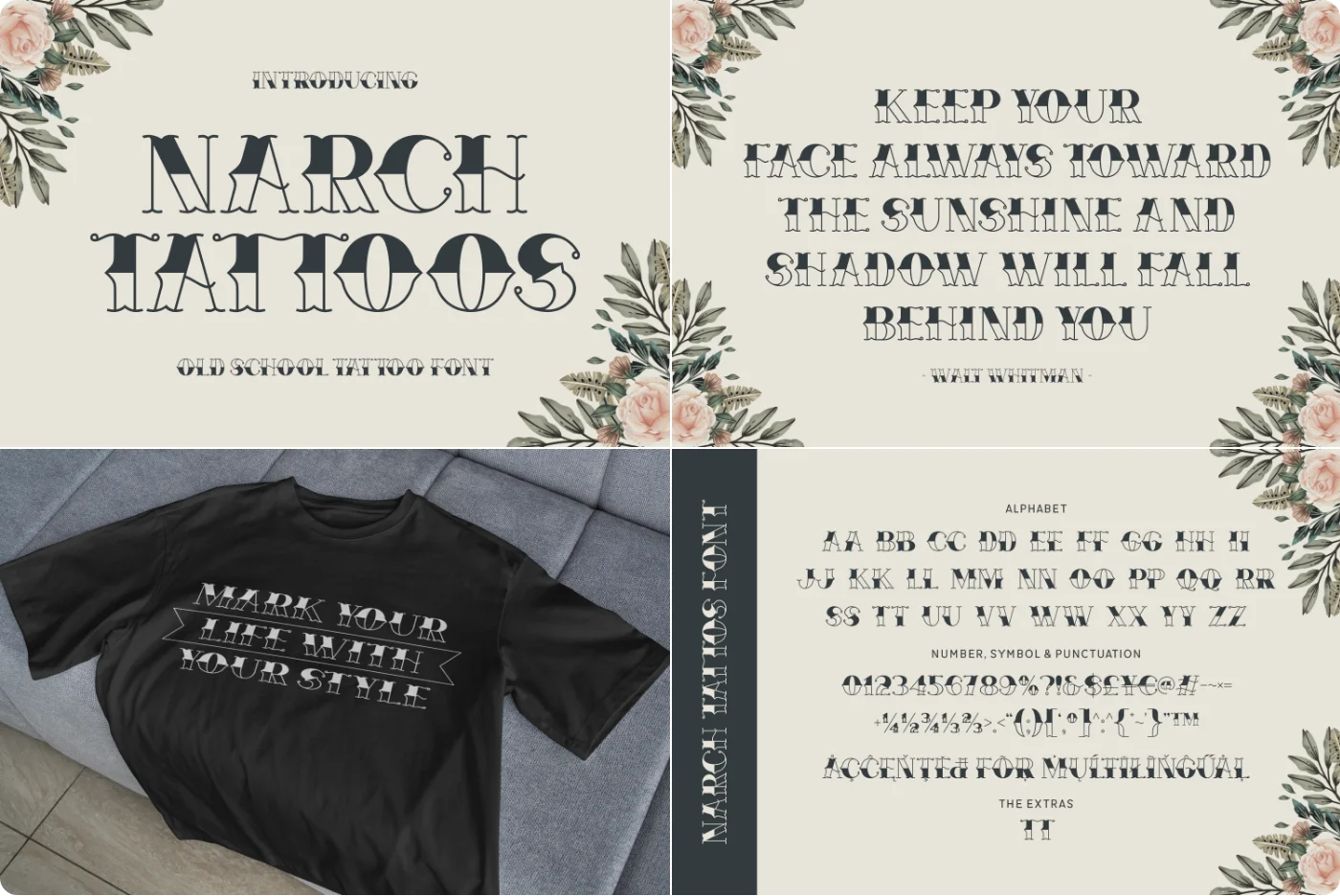
Narch Tattoos is a bold, old-school tattoo typeface with strong, clean strokes and vintage grit—built to deliver that classic rebellious vibe.
- Style/mood: traditional tattoo aesthetic; bold, retro, high-impact, rebellious.
- Best for: logos, tattoo shop branding, apparel labels, posters, signage, and retro-themed packaging.
- Glyphs: basic Latin set (A–Z, a–z), numerals, and essential punctuation/symbols.
- OpenType features: standard kerning; no color/bitmap features.
2. Montors Blackletter Font
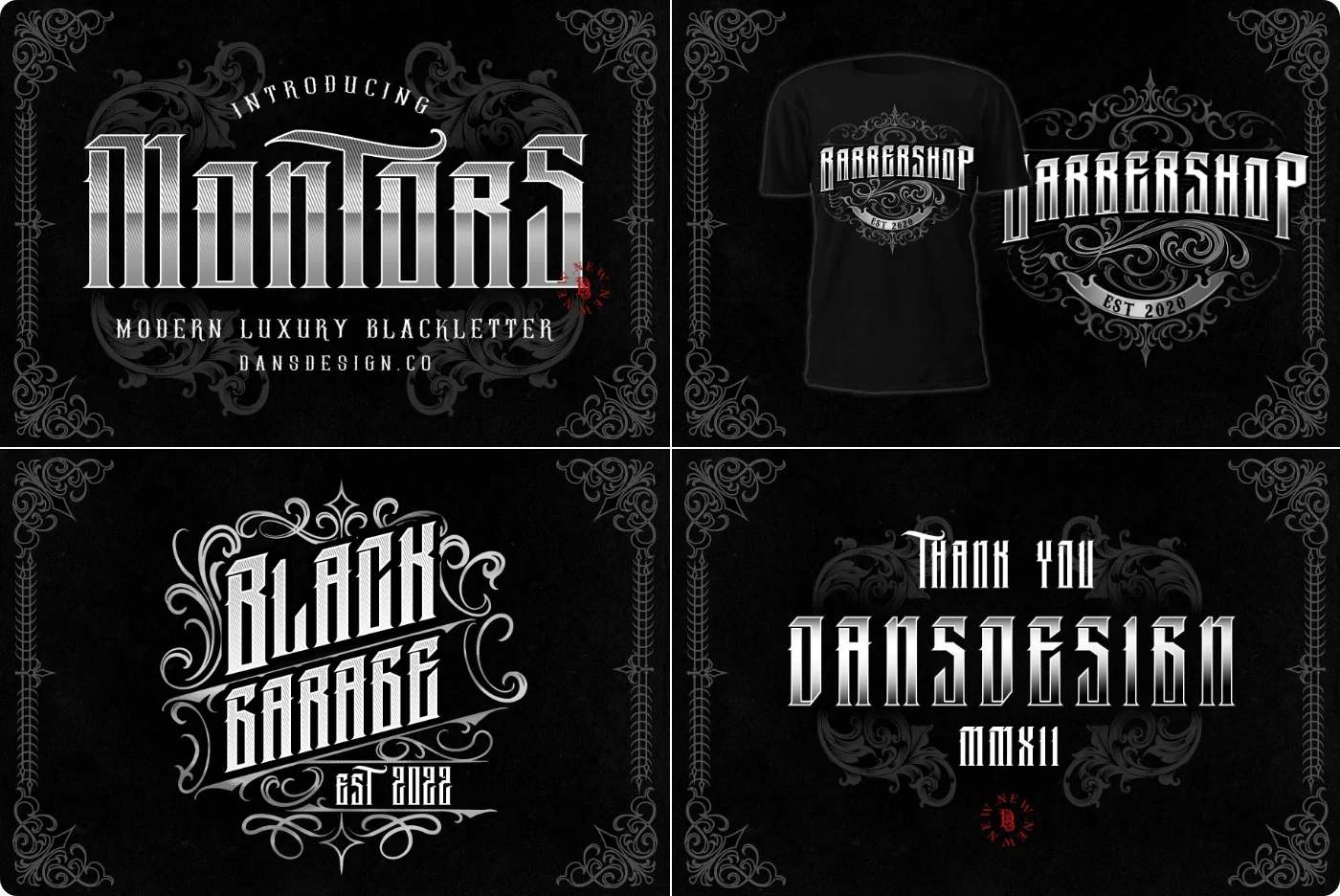
Montors is a modern blackletter with a horror‑metal edge—highly detailed and built to make bold, gritty statements. Perfect for eye‑catching display work.
- Style/mood: modern blackletter; aggressive, detailed, retro‑urban/horror vibe.
- Ideal uses: tattoo branding, band/metal merch, logos, vintage/retro posters, packaging, and apparel.
- Glyph set: expected A–Z, a–z, numerals, and punctuation for display use (exact coverage not specified).
- OpenType features: no specific alternates/ligatures listed by the vendor.
3. Elpida Tattoo Script Font
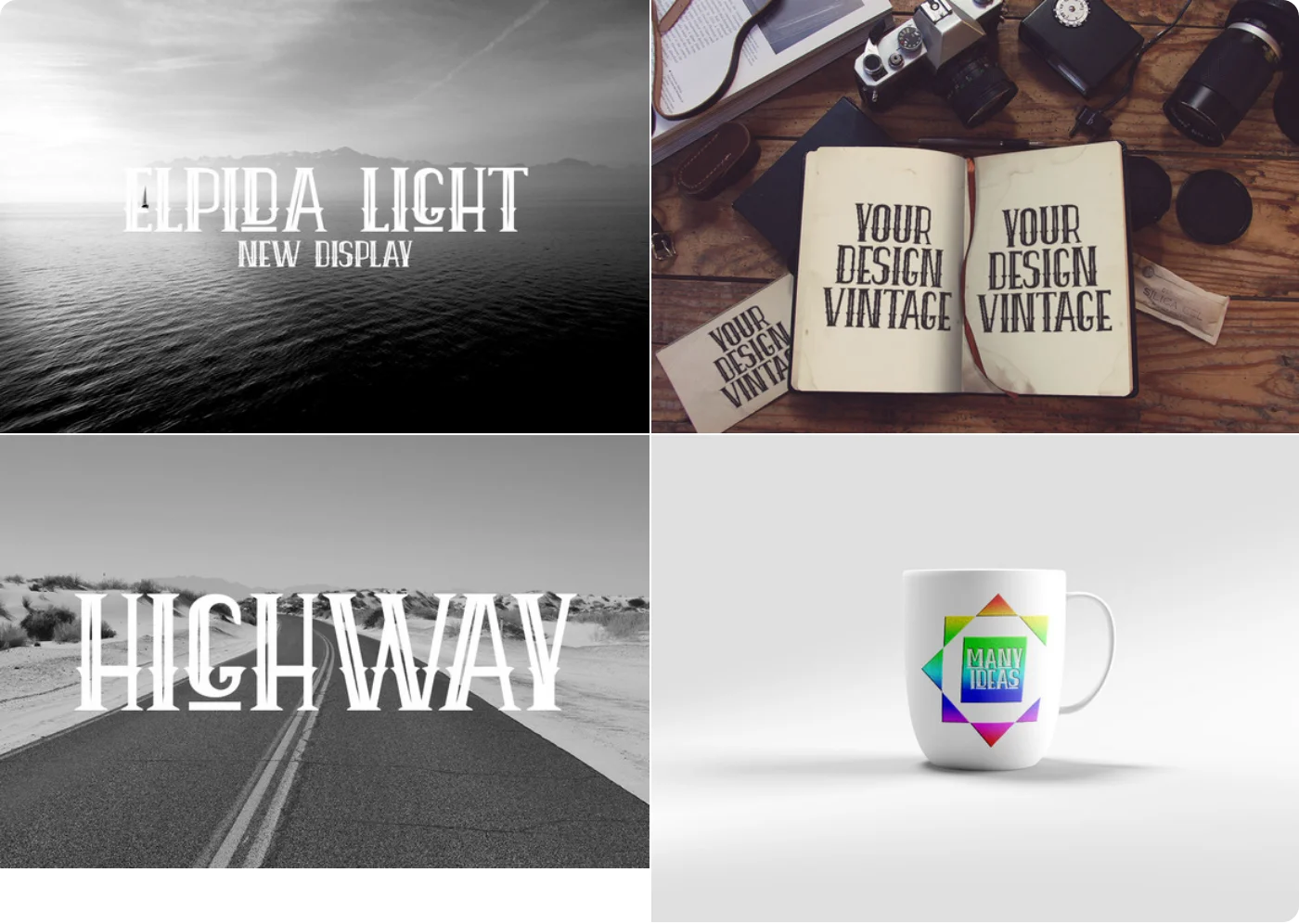
A light, stylish script with a vintage Americana tattoo vibe—perfect for standout, nostalgic designs.
- Style/mood: Light-weight script; hip, refined, with a classic tattoo/Americana feel.
- Ideal uses: Logos, badges, signage, apparel, packaging, posters, invitations.
- Glyph set: Basic Latin A–Z, a–z, numerals, and punctuation (check listing for language coverage).
- OpenType features: Not specified in the description.
4. Old Bones American Traditional Tattoo Font
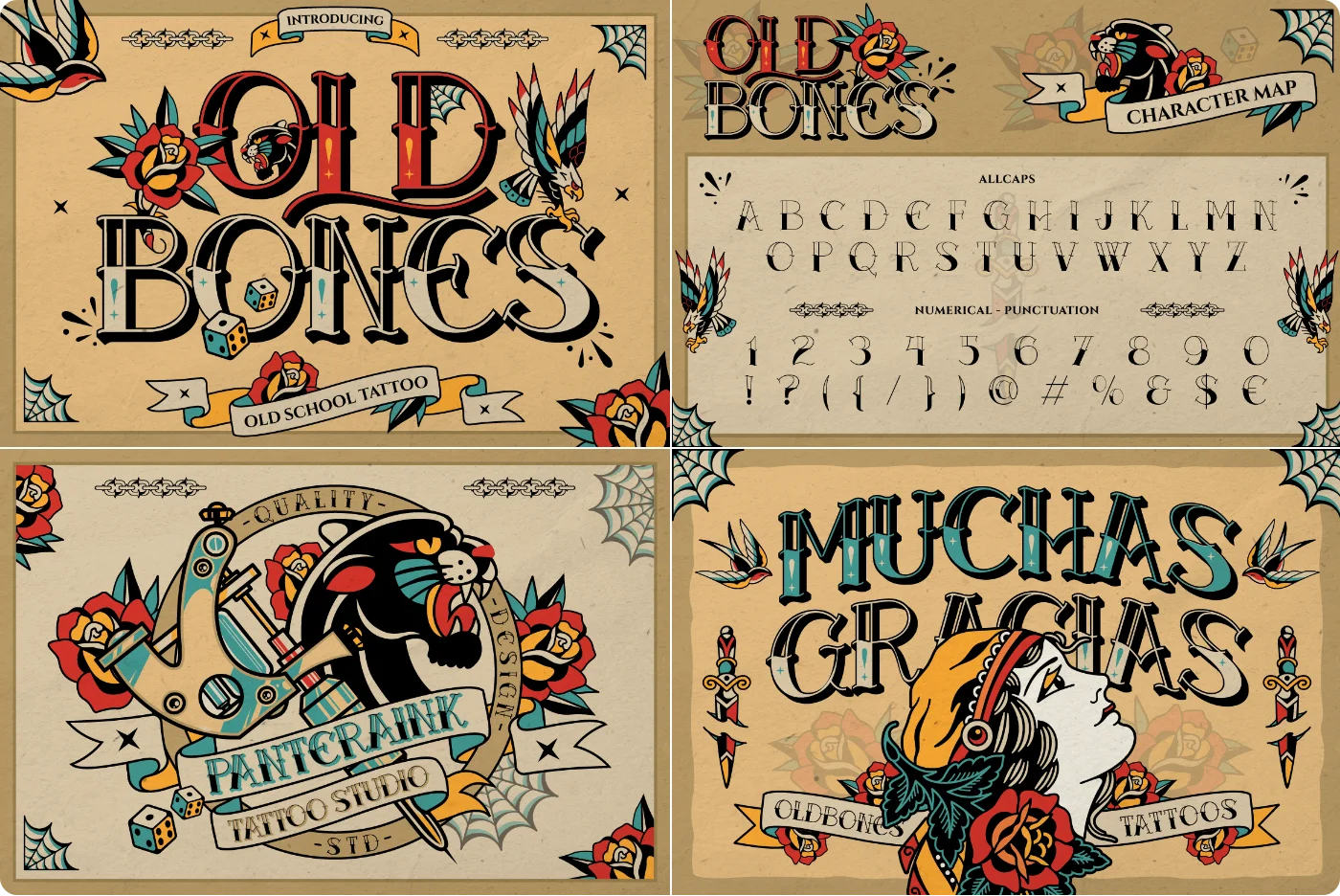
Oldbone is a bold display font that channels classic 1950s American tattoo-shop grit—available in Regular and 3D styles for instant, head-turning titles.
- Style/mood: Traditional tattoo/rockabilly vibe; bold, rebellious, vintage.
- Ideal for: apparel branding, barbershops/tattoo studios, café/restaurant menus, gig posters, album art, stickers, signage, and logos.
- Glyphs and OpenType: Standard Latin A–Z and a–z, numerals, and basic punctuation with proper kerning (OpenType-ready).
5. Tattoo Master Font
Tattoo Master is a bold, vintage, multi-layered display font with strong outlines and classic monogram flair—perfect for tattoo-inspired branding that needs impact.
- Style/mood: Vintage, high-contrast, ornamental; layerable design for stacked/outlined effects with a monogram aesthetic.
- Ideal uses: Tattoo lettering, standout headlines, product labels, logos/badges, packaging, signage, apparel.
- Glyph set: Monogram-focused letters; full character set (lowercase, numerals, punctuation, language support) not specified.
- OpenType features: Specific features (alternates, ligatures, stylistic sets) not stated by the seller.
- Glyph set: standard Latin A–Z, a–z, 0–9, and basic punctuation/symbols.
- OpenType features: standard kerning and metrics; functions in OT-capable apps.